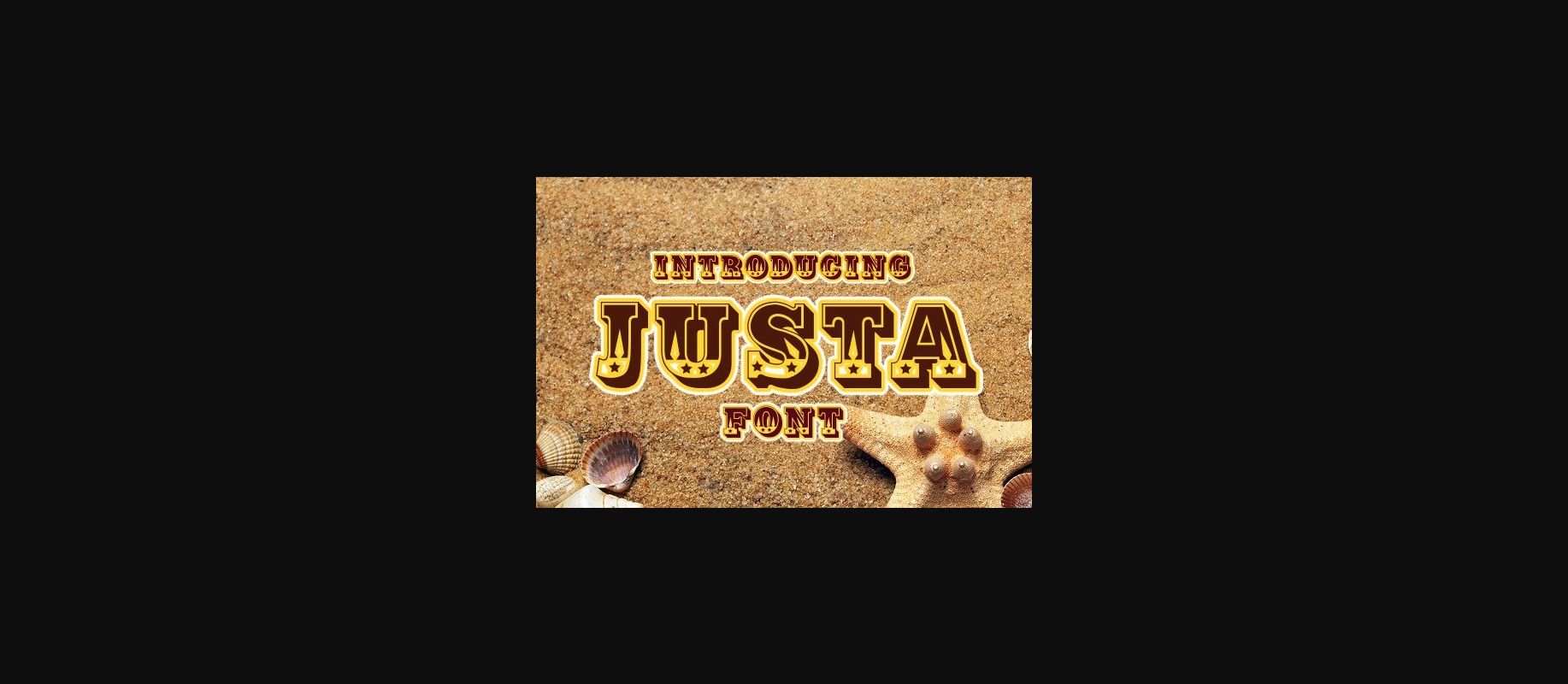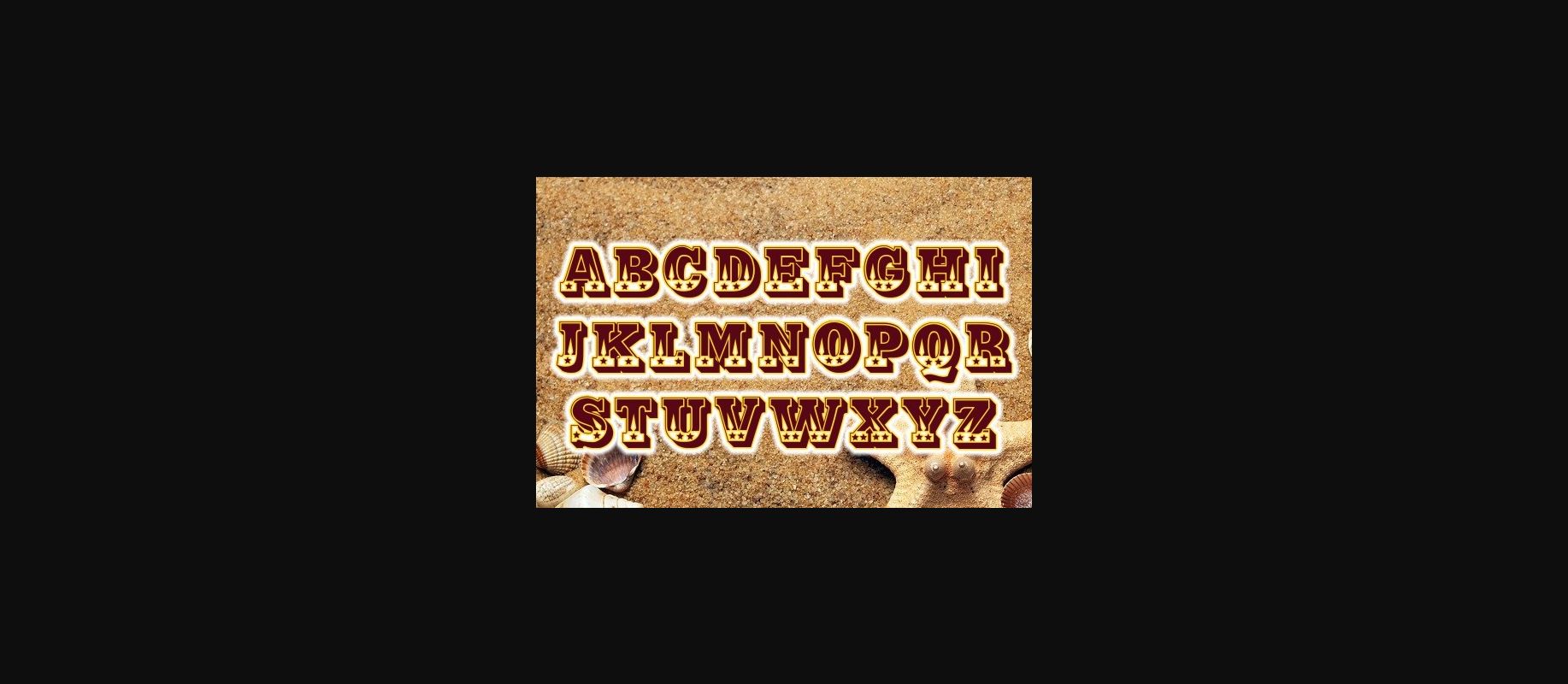
HomeDecorative FontsJusta Font Decorative Fonts Justa Font FacebookXPinterestWhatsApp 1 of 4 ... Justa Font Poster 2... Justa Font Poster 3... Justa Font Poster 4... About Justa Font Justa is a festive decorative font that will look stunning on any poster, flyer, or print. Use this font for your designs and explore its endless possibilities. DOWNLOAD NOW People also explored Popty Ping Magister Script Font Kate Greenaway’s Alphabet Otnair Font Hey Beach Font Holiday Font White Lily Monogram Font Sayonara Font Black and Bitter Coffee Font 331 0 TagsJustaJusta Font Previous articleShine FontNext articleShanty Christmas Monogram Font LEAVE A REPLY Cancel reply Comment: Please enter your comment! Name:* Please enter your name here Email:* You have entered an incorrect email address! Please enter your email address here Website: Save my name, email, and website in this browser for the next time I comment. Personal Use Free Delions Personal Use Free Read more about this font Mold Papa Personal Use Free Read more about this font Beattingvile Personal Use Free Read more about this font Trio Personal Use Free Read more about this font BLOG How to Cut Any Font on Cricut: Convert a Font to SVG (Free) Turn any font into a clean SVG so it cuts crisp on Cricut - a quick 3-step workflow using a free font-to-SVG tool. How to Install and Use Fonts on Windows, macOS, and Web Projects Fonts That Capture the Spirit of New York City Top 7 Google Fonts Alternatives for Faster and Privacy-Friendly Web Design (2025)